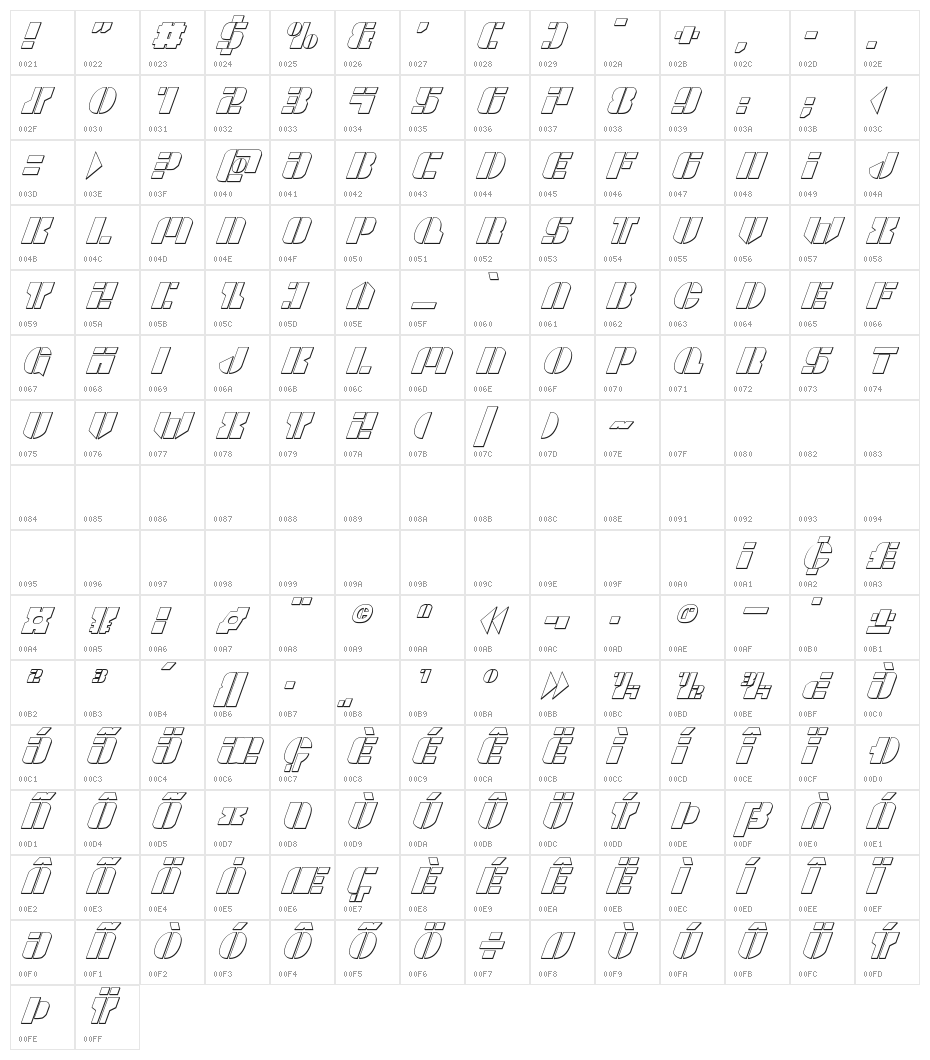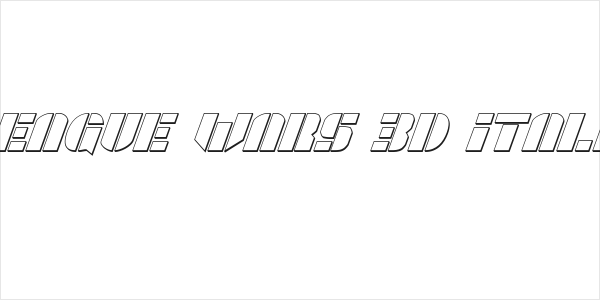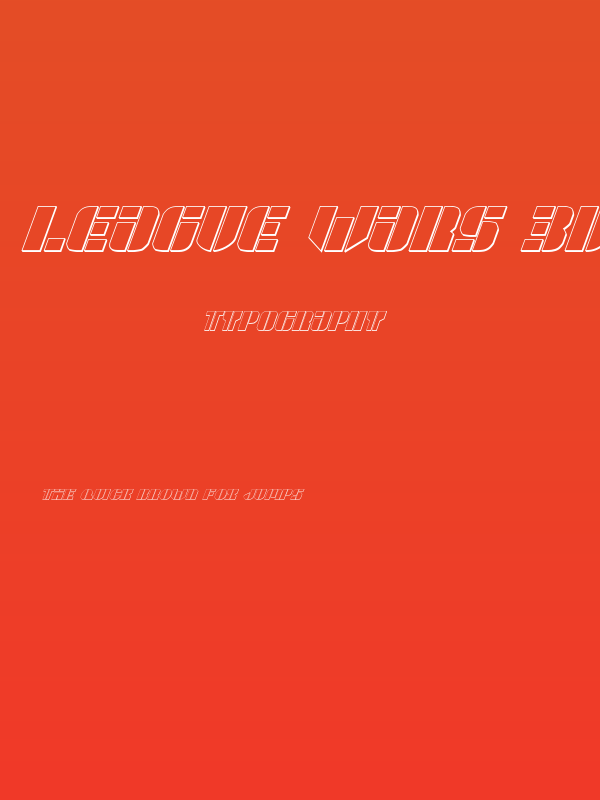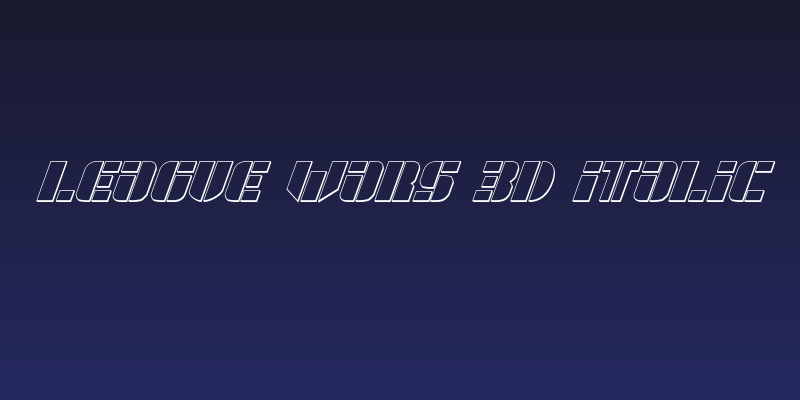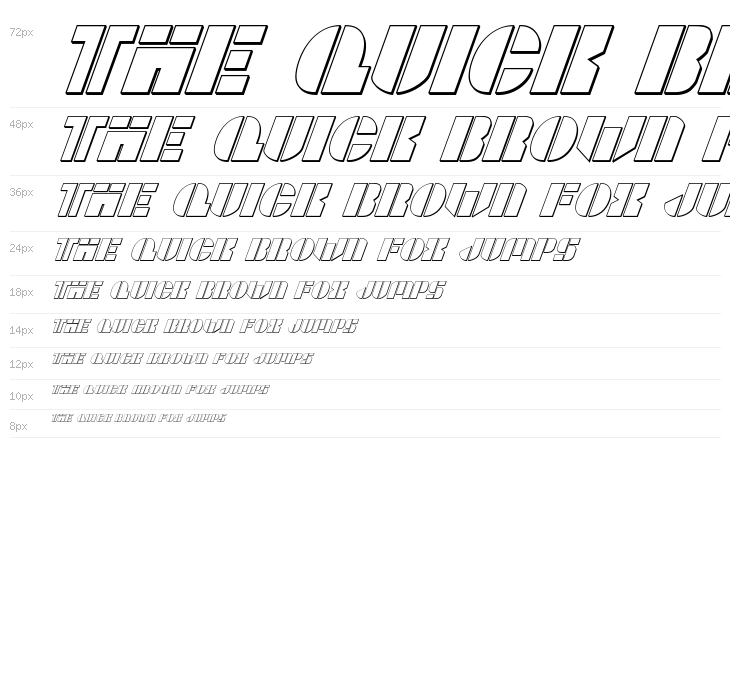
League Wars 3D Italic Font
League Wars 3D Italic Description
This font features a bold, italicized 3D style with a futuristic and dynamic appearance. The characters are outlined with a distinct shadow effect that gives them a sense of depth and movement. The geometric shapes and sharp angles contribute to its modern and edgy look, making it stand out in any design. The uppercase and lowercase letters maintain a consistent style, while the numbers and special characters are designed to match the overall aesthetic. This font is perfect for projects that require a strong visual impact and a contemporary feel.
| Proposed Projects | Ideal for video game titles, sci-fi movie posters, tech-related branding, and modern advertising campaigns. |